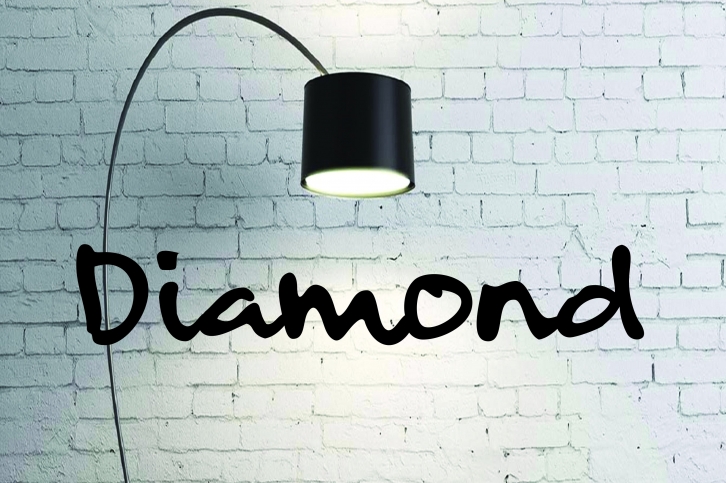
Diamond are handmade with amazing character. Ideal for a logo, a name tag, handwritten quotations, product packaging, goods, social media and greeting cards. It contains a complete set of lower and upper case letters, assorted punctuation, numbers, swash and multilingual support.
The font also contains some contextual alternative to lower-case characters, can be accessed in Adobe Illustrator Glyphs panel, or under Stylistic Alternates in Adobe Photoshop OpenType menu. But if you do not have a specific OpenType software, you can still use the diamond as the standard small and large letters. as Diamond is available with 2 font files that can be used without software support OpenType.